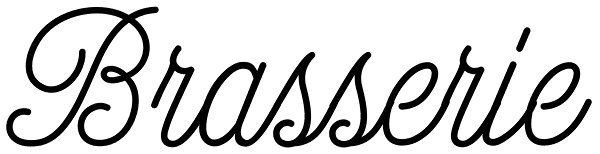
Brasserie
Brasserie, the font, is a tribute to all brasseries since they are wonderful places to relax and enjoy food, wine and friends. It is also a salute to Parisian neon sign makers who continue in their difficult quest to adapt type, including script...